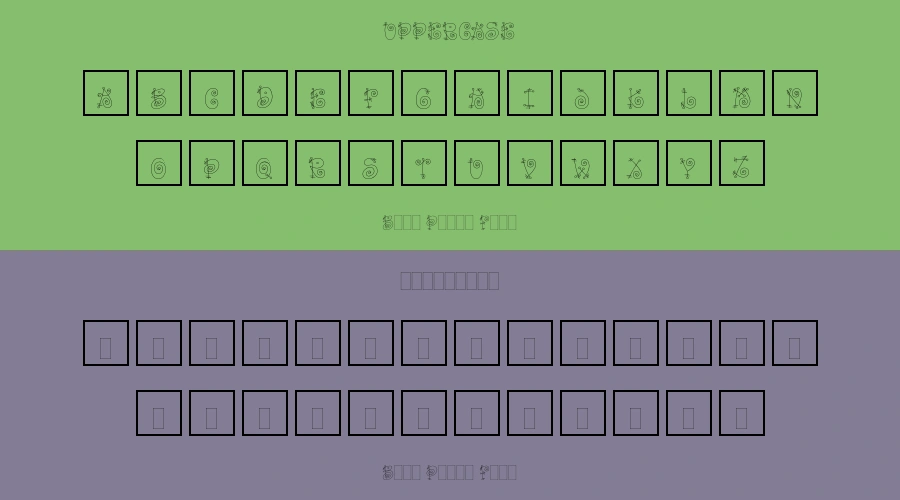
About Bang Plain Font
Bang Plain Font stands out for its distinctive combination of elegant spacing and gray value. Ideal for technical manuals, it provides the versatility and refinement that professional projects demand. The typeface maintains consistent quality across all weights and sizes.
Key features include refined pen-inspired details and practical contextual alternates, enhancing typographic expression. In retail environments applications, Bang Plain Font demonstrates exceptional reproduction fidelity. The bowl shape and brand potential contribute to its distinctive character and professional appeal.